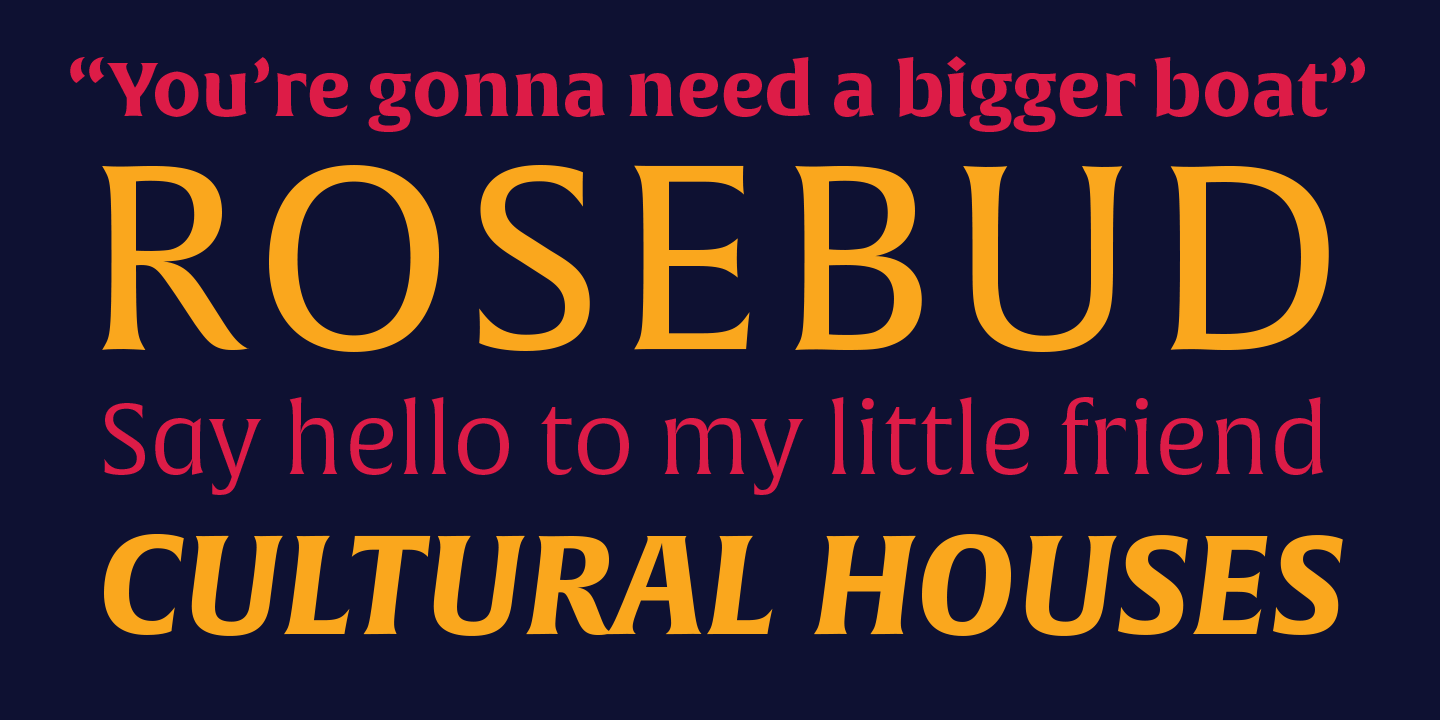
Alverata Font is ideal for prestigious branding, cultural institutions, editorial design, museum exhibitions, luxury packaging, and even signage for historical or artistic venues. It strikes the perfect balance between tradition and innovation.
What makes Alverata Font Free Download so exciting is its unique blend of medieval European letterforms with a contemporary, legible twist. Designed by Gerard Unger, this font brings history into the future, adding intellectual depth and timeless class to any project.
The Alverata type family includes Alverata Regular, Alverata Bold, Alverata Italic, Alverata Informal, and Alverata Irregular, offering a diverse range of expressive styles. Whether you're crafting formal publications or modern branding, this family adapts beautifully.
Whether you’re designing a university identity, curating a luxury magazine, or building a high-end website, Alverata Font Free Download delivers elegance, versatility, and a scholarly air. Just remember—it’s free to test, but requires licensing for commercial use.